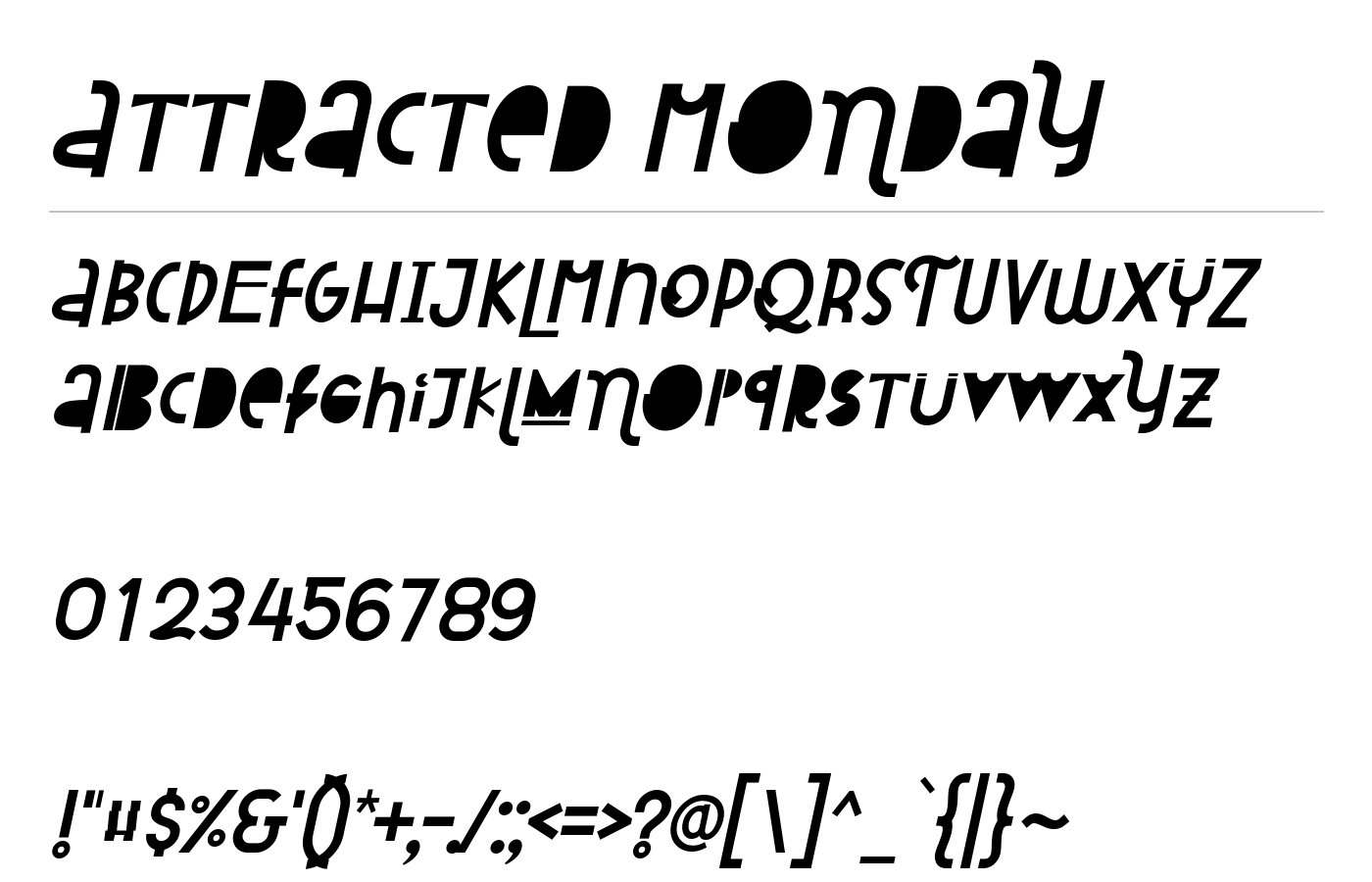
Attracted Monday is a playful and modern sans serif font with a unique, artistic twist. Its irregular shapes, varying stroke widths, and slightly condensed letterforms give it a dynamic, energetic feel perfect for creative branding, eye-catching logos, and bold headlines. This font adds a fresh and distinctive personality that works well where originality and impact are key.
Attracted Monday Font
About Attracted Monday Font